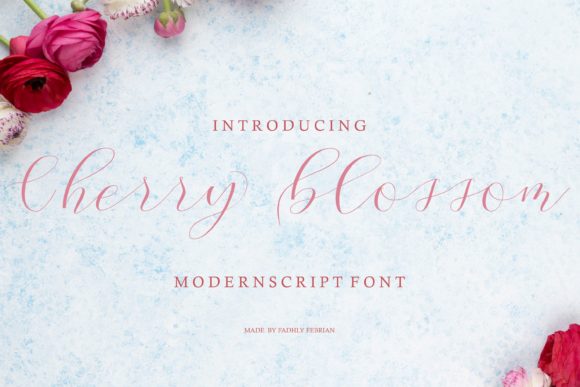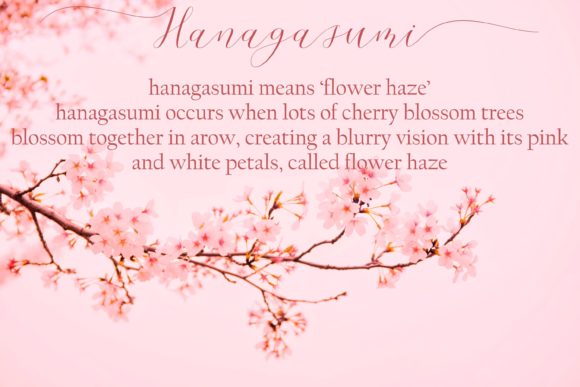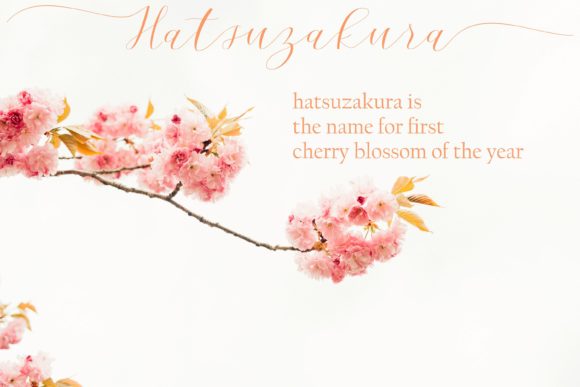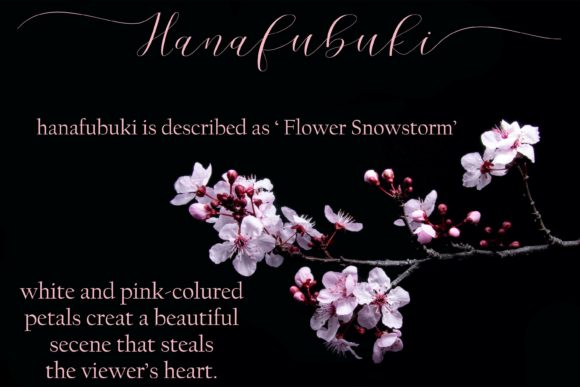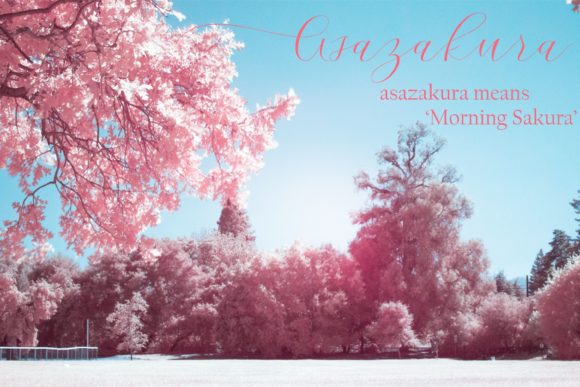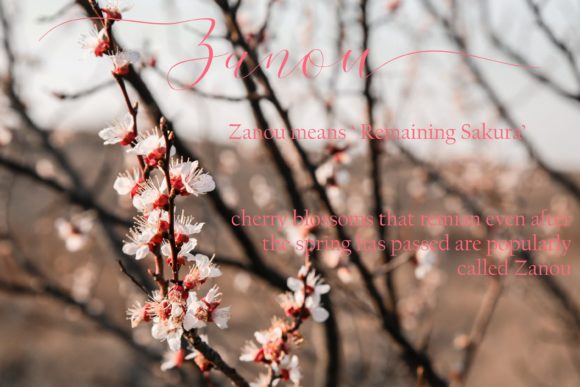
About Cherry Blossom Script Font
Cherry Blossom Script is a romantic and sweet calligraphy typeface with characters that dance along the baseline. It will add a luxury spark to any design project that you wish to create!